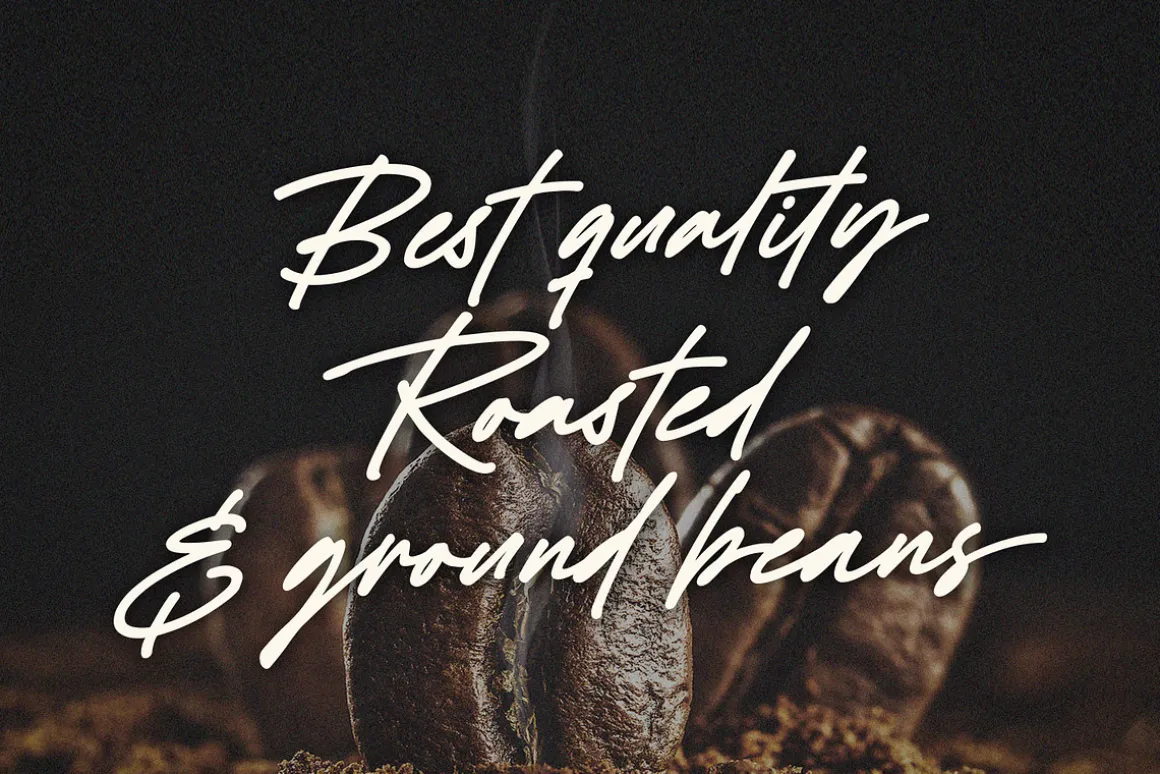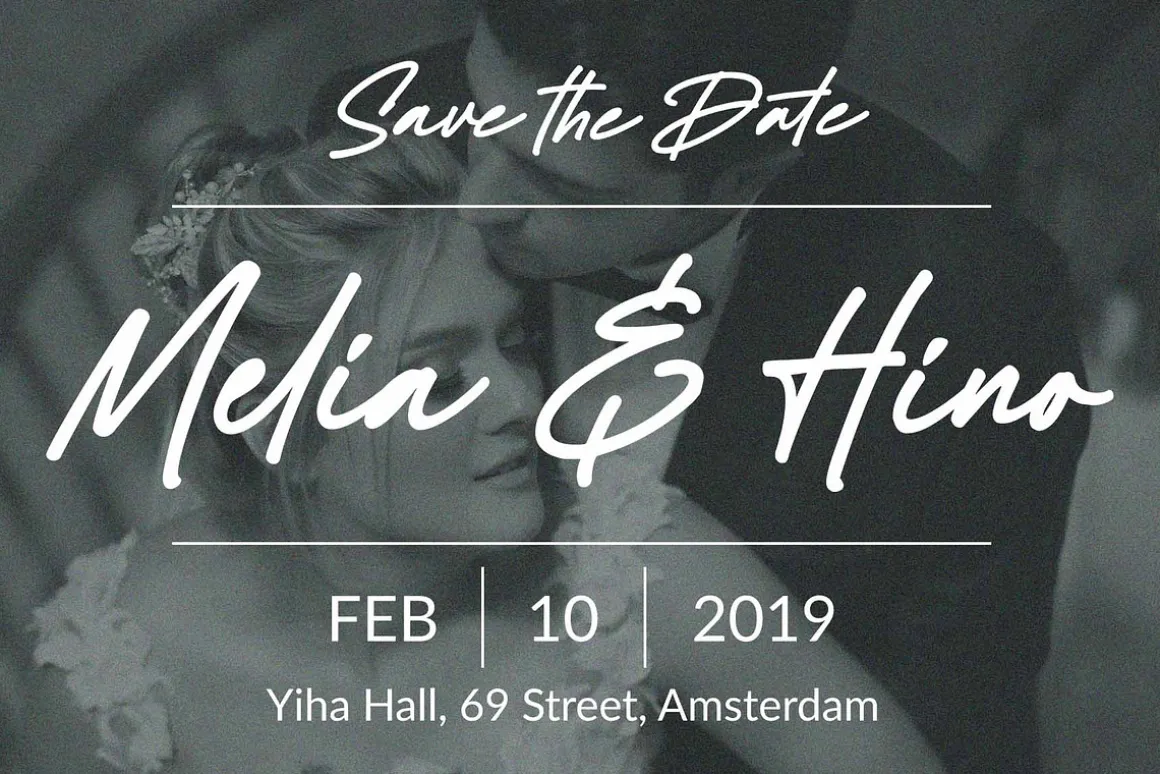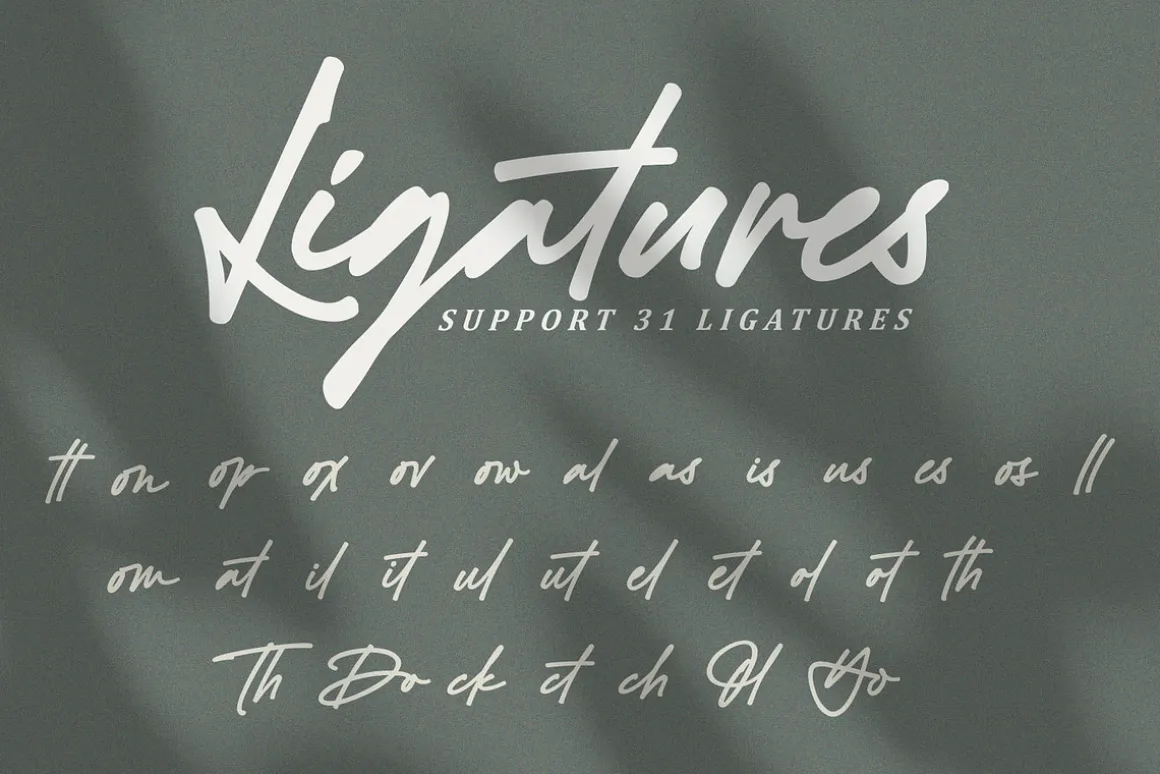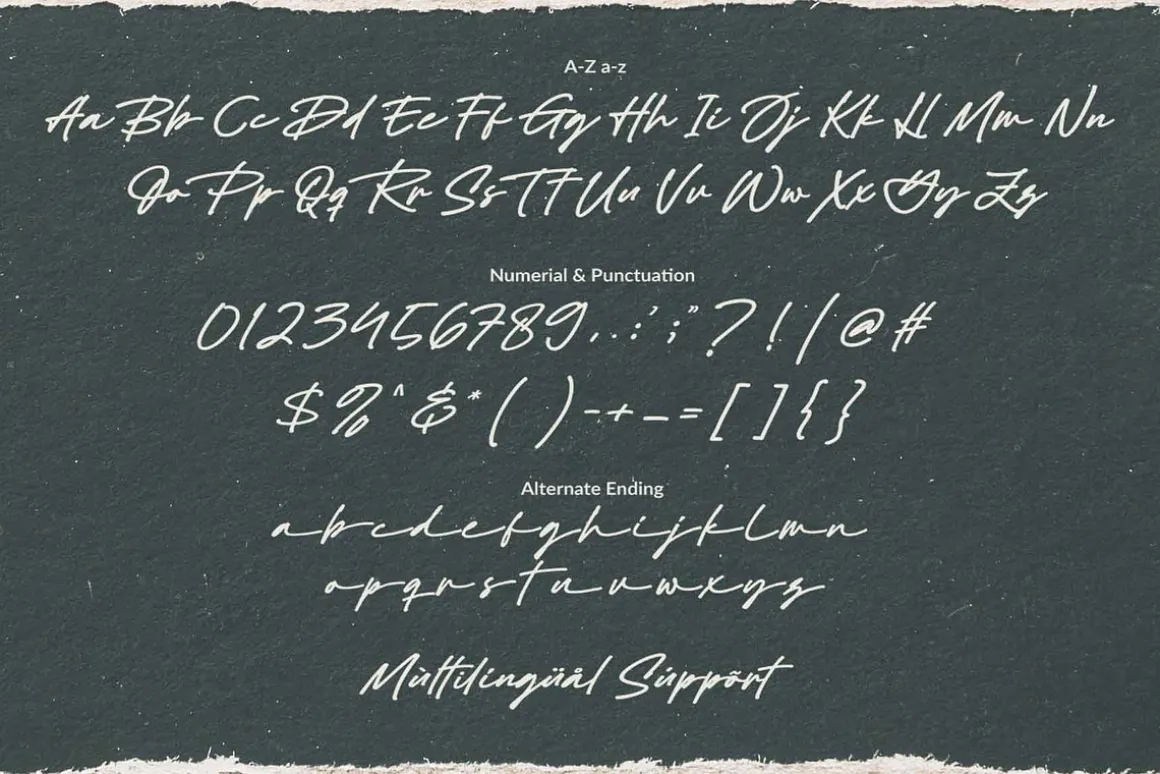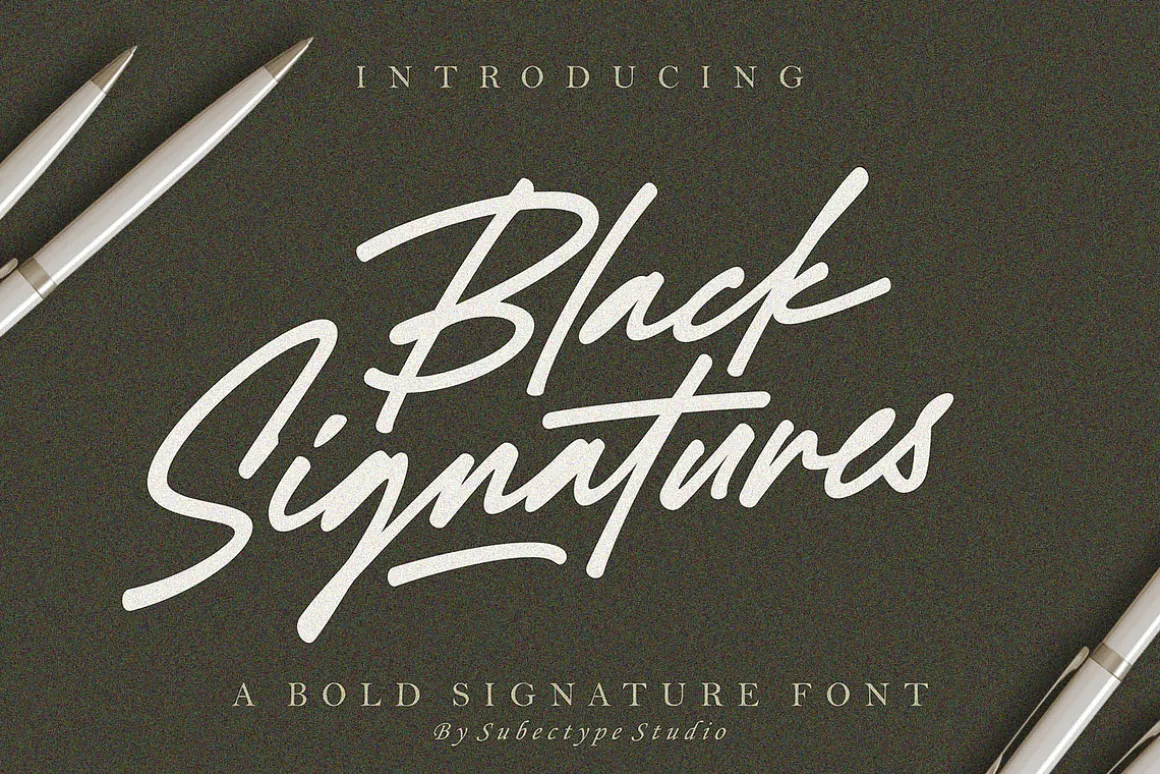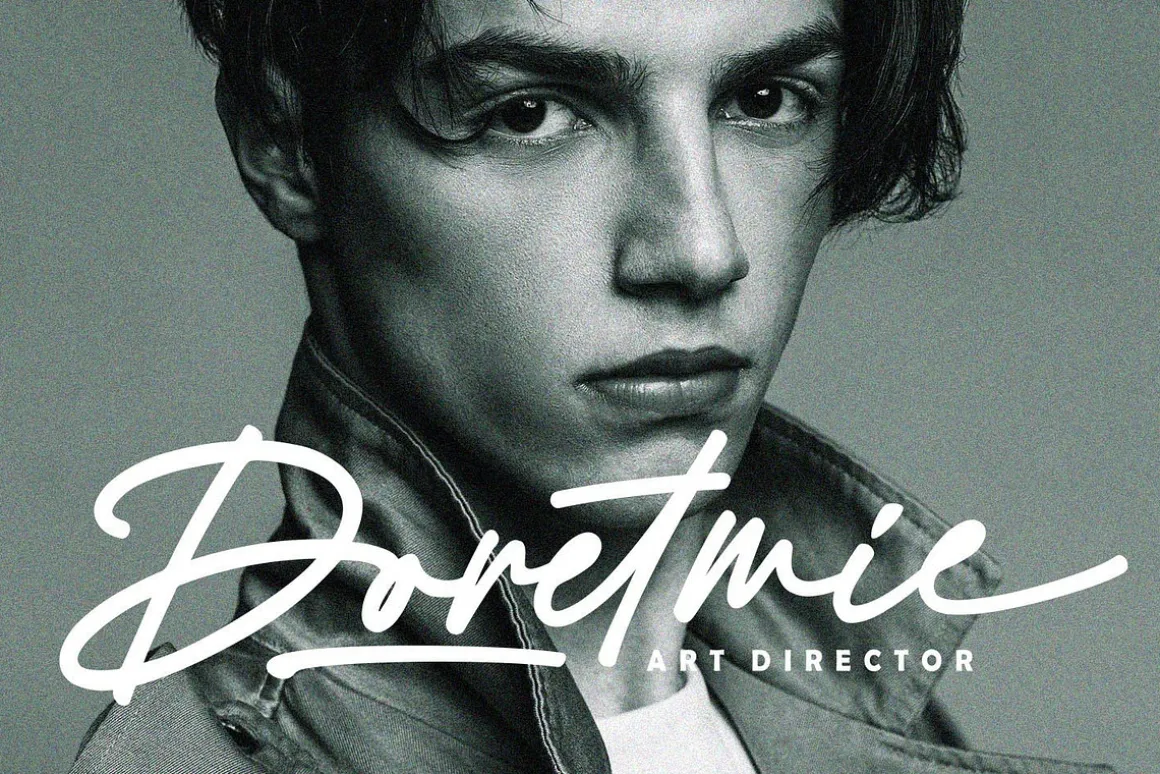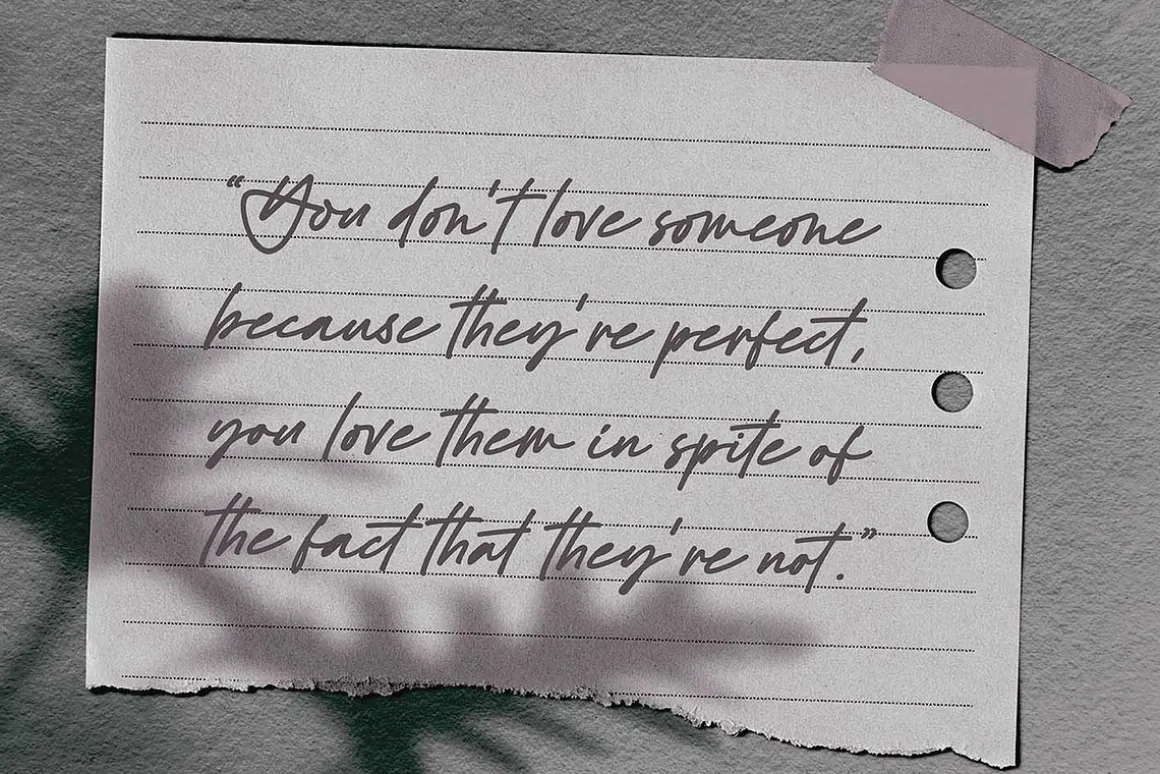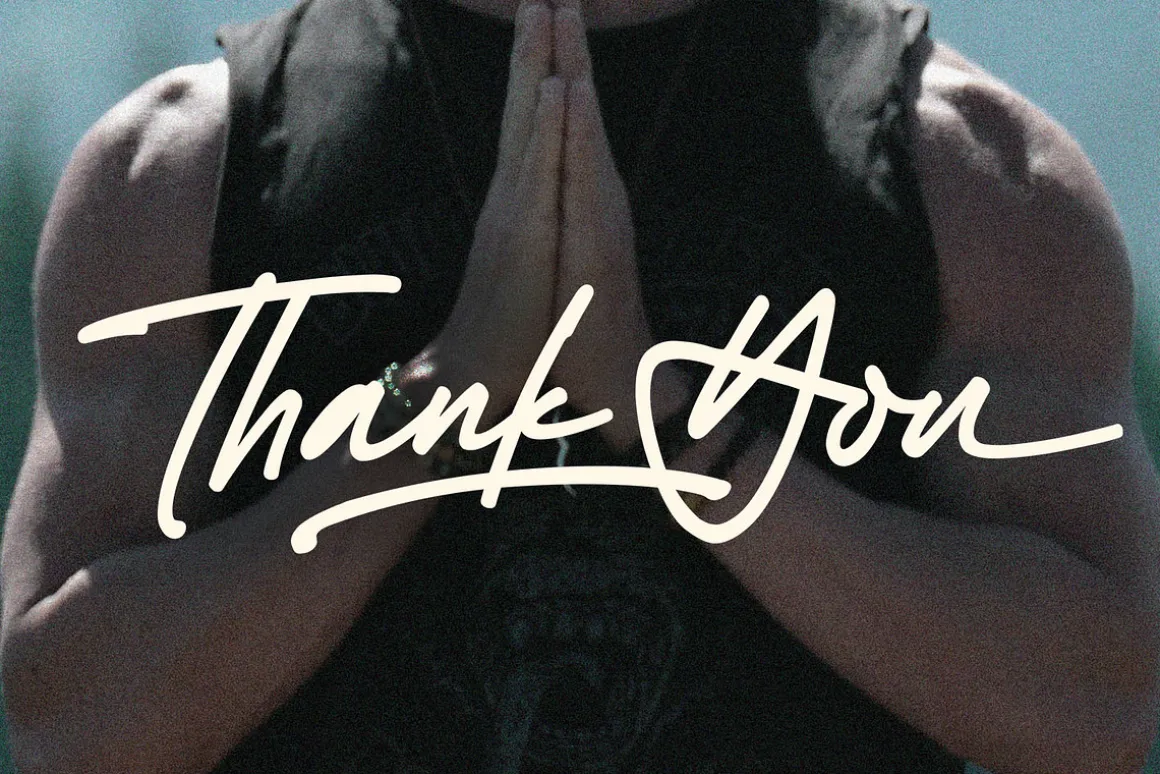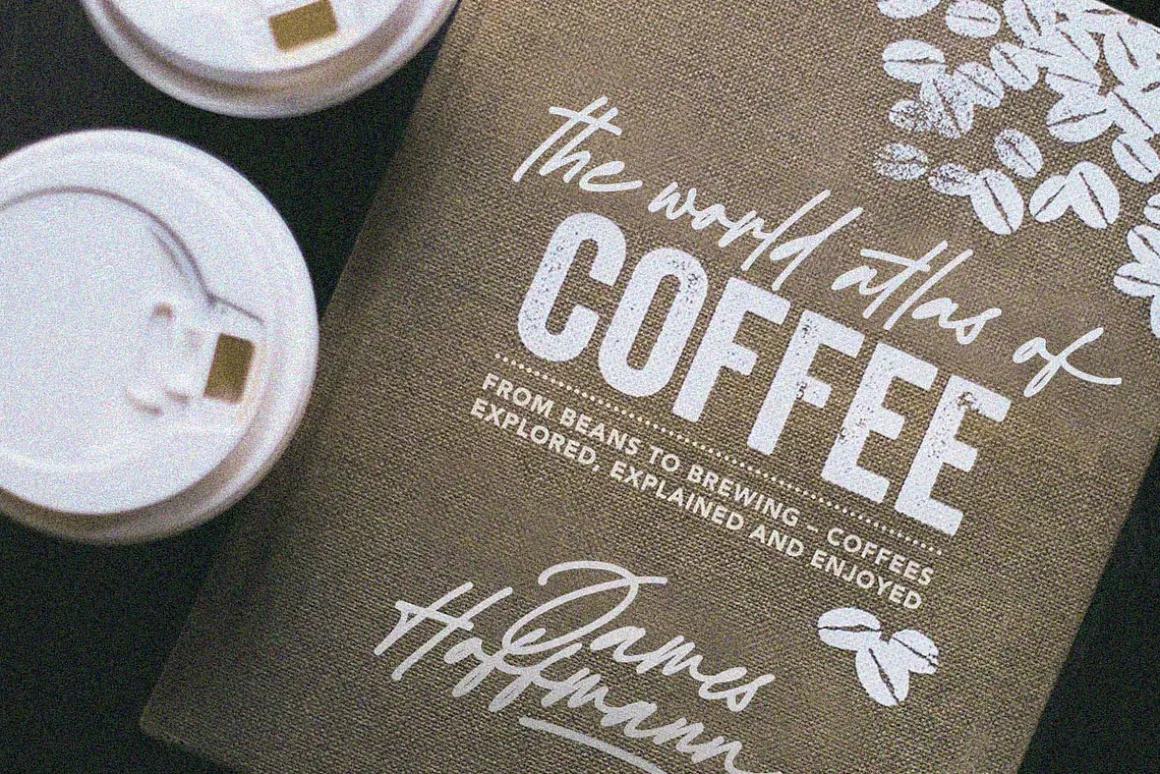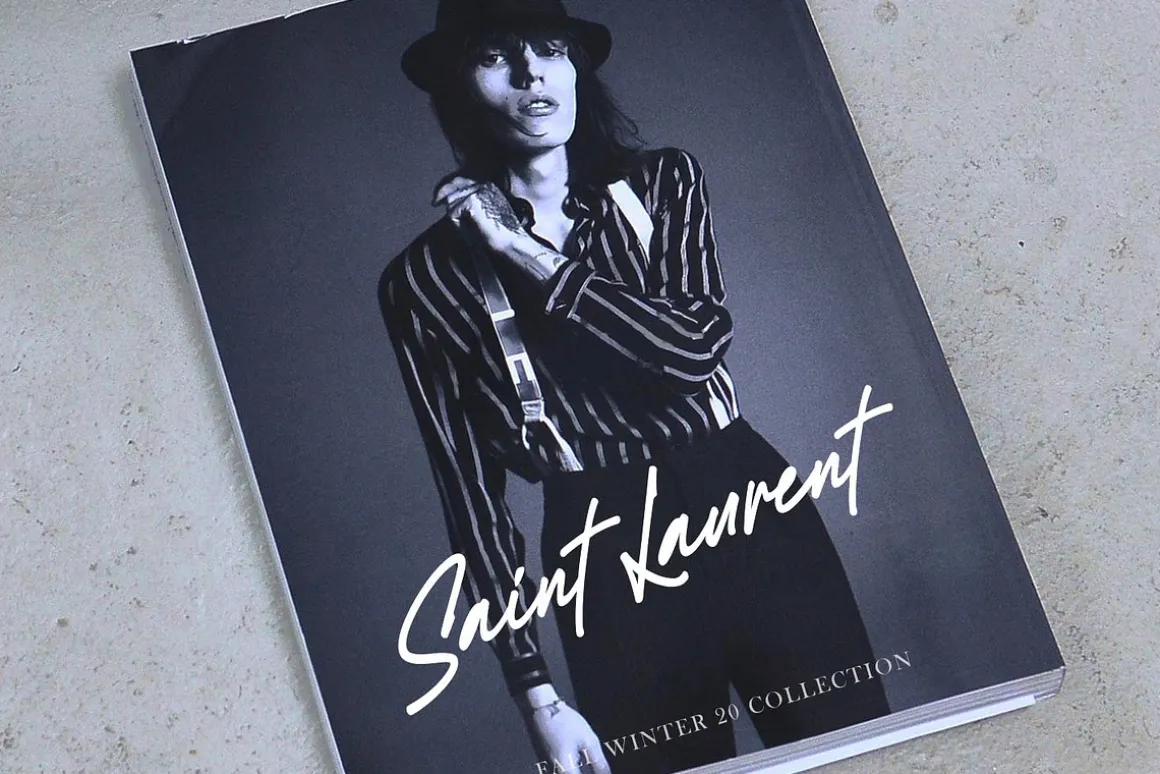
‘Black Signature’ is a Bold Signature Font script with a natural & stylish flow. This collection of scripts is perfect for personal branding. It was made with the intention to be used for your personal branding. But, this works well for many applications.Everything from personal branding, photography signature, advertising could benefit from this collection of this bold signature fonts.
it has an extensive lingual support, covering European and Asian Latin scripts. The font contains all characters you’ll ever need, including all punctuation and numbers.